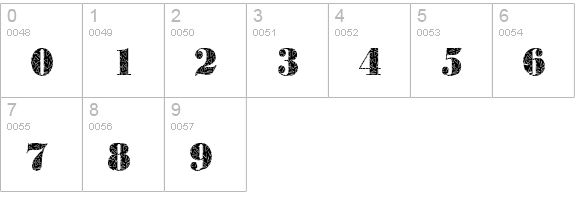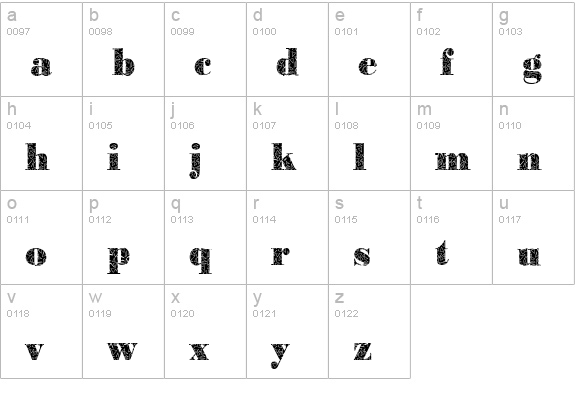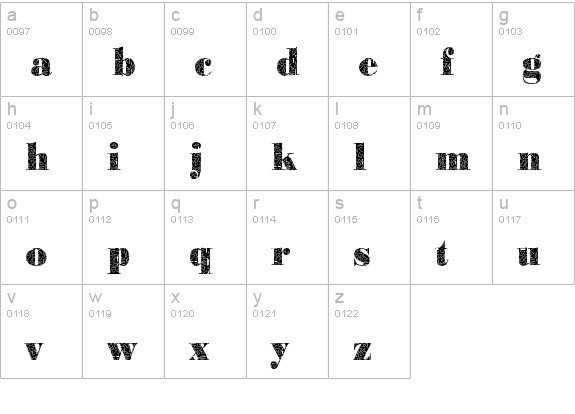
BodoniGlass2-Regular Font Details
BodoniGlass2-Regular is the standard, neutral variant in the BodoniGlass2 typeface family \xE2\x80\x94 well suited to general body text, paragraphs, and standard typographic work.
BodoniGlass2-Regular is a sophisticated and elegant typeface that exudes a sense of modernity and refinement. Its sleek lines and sharp serifs give it a timeless appeal, making it the perfect choice for projects that require a touch of class and sophistication. The font's clean and crisp letterforms make it highly legible, ensuring that your message is conveyed with clarity and style. The BodoniGlass2-Regular font is available for free download at FontsMarket.com, making it easily accessible for anyone looking to add a touch of elegance to their designs. Whether you're working on a branding project, a website design, or a print advertisement, this font is sure to elevate your work and leave a lasting impression on your audience. With its classic yet contemporary design, BodoniGlass2-Regular is a versatile typeface that can be used for a wide range of applications. Its timeless beauty and refined aesthetic make it a must-have for designers looking to create visually stunning and impactful designs. Download BodoniGlass2-Regular for free today and elevate your projects with its sophisticated charm.